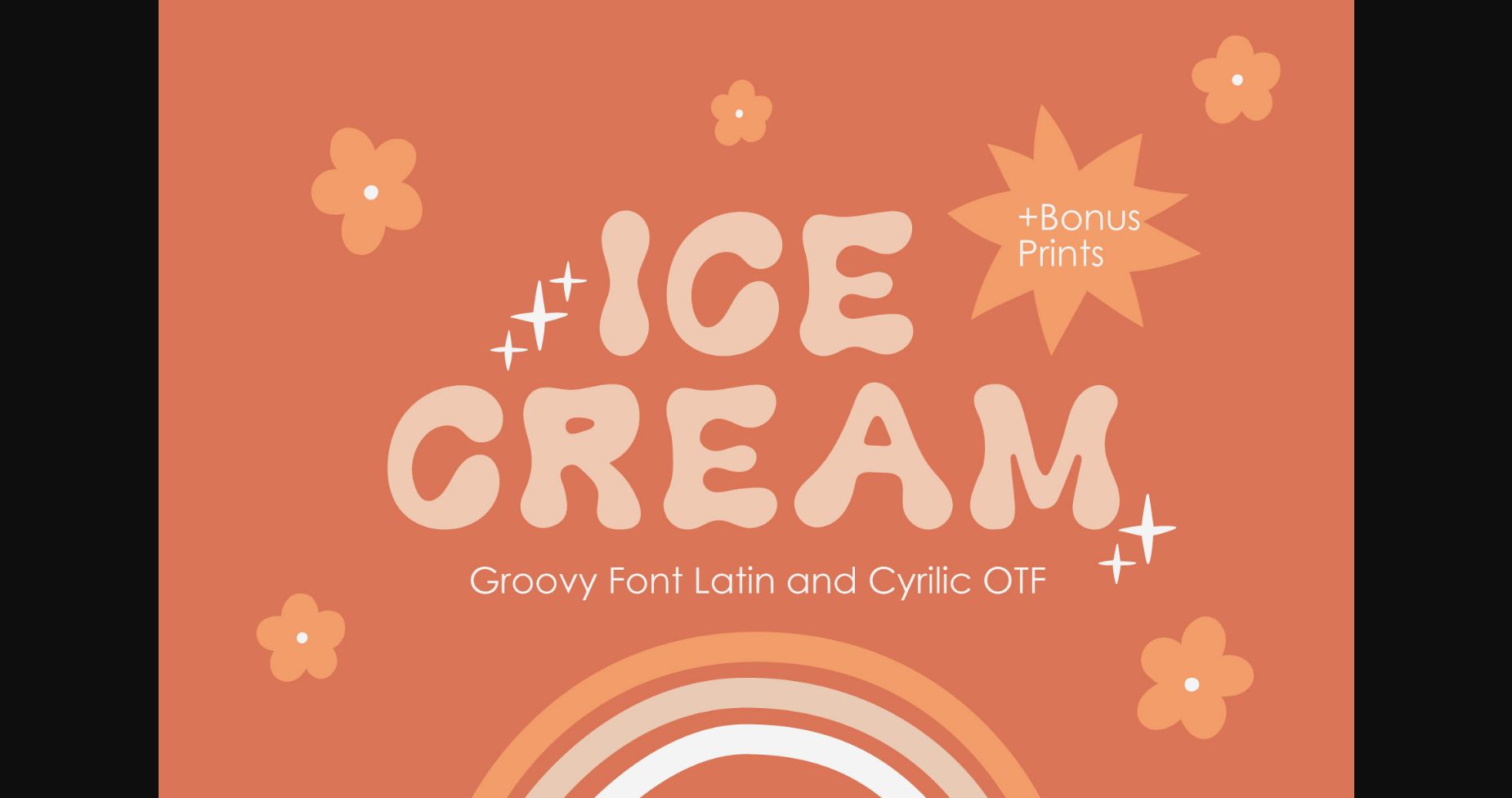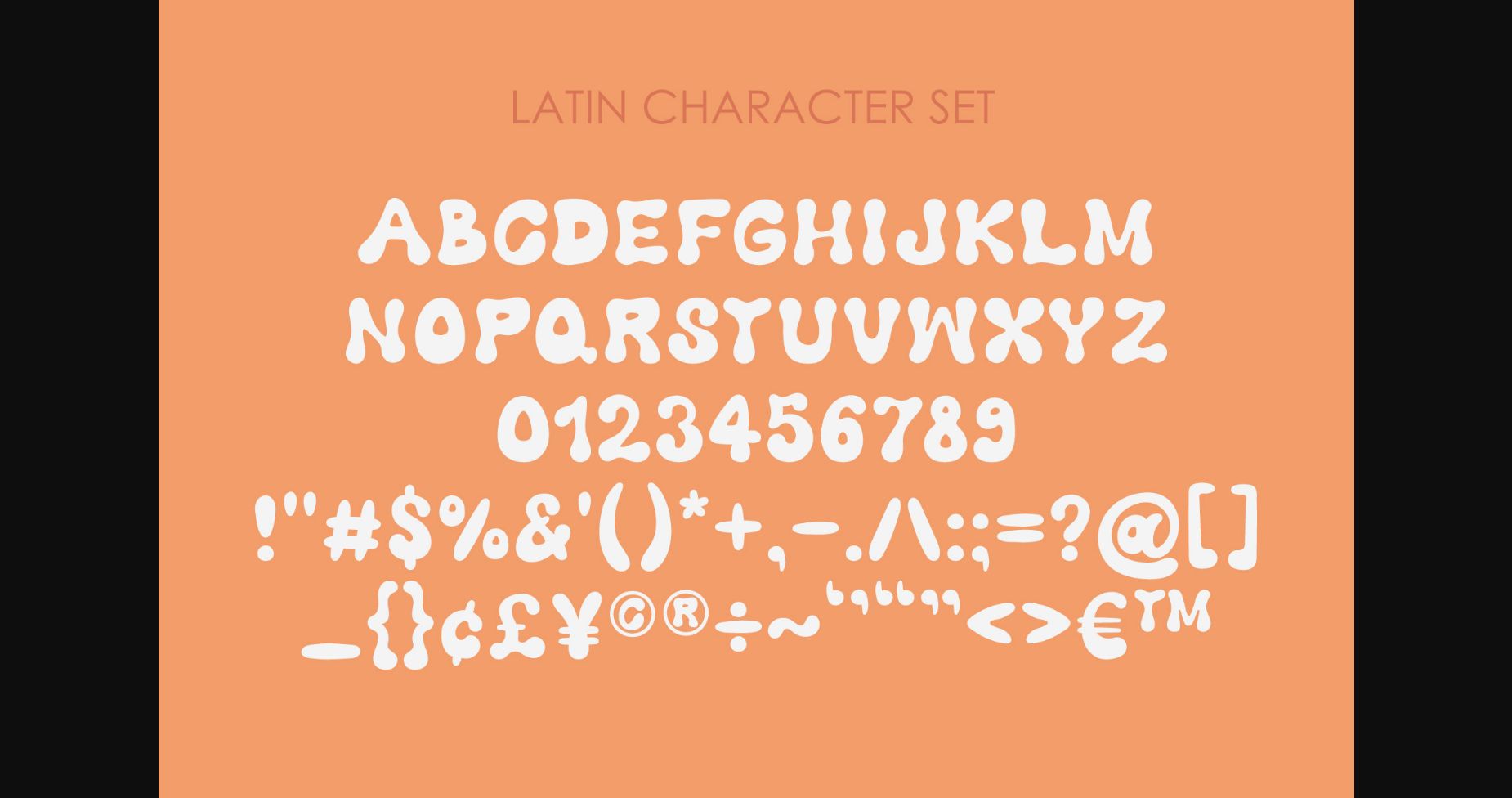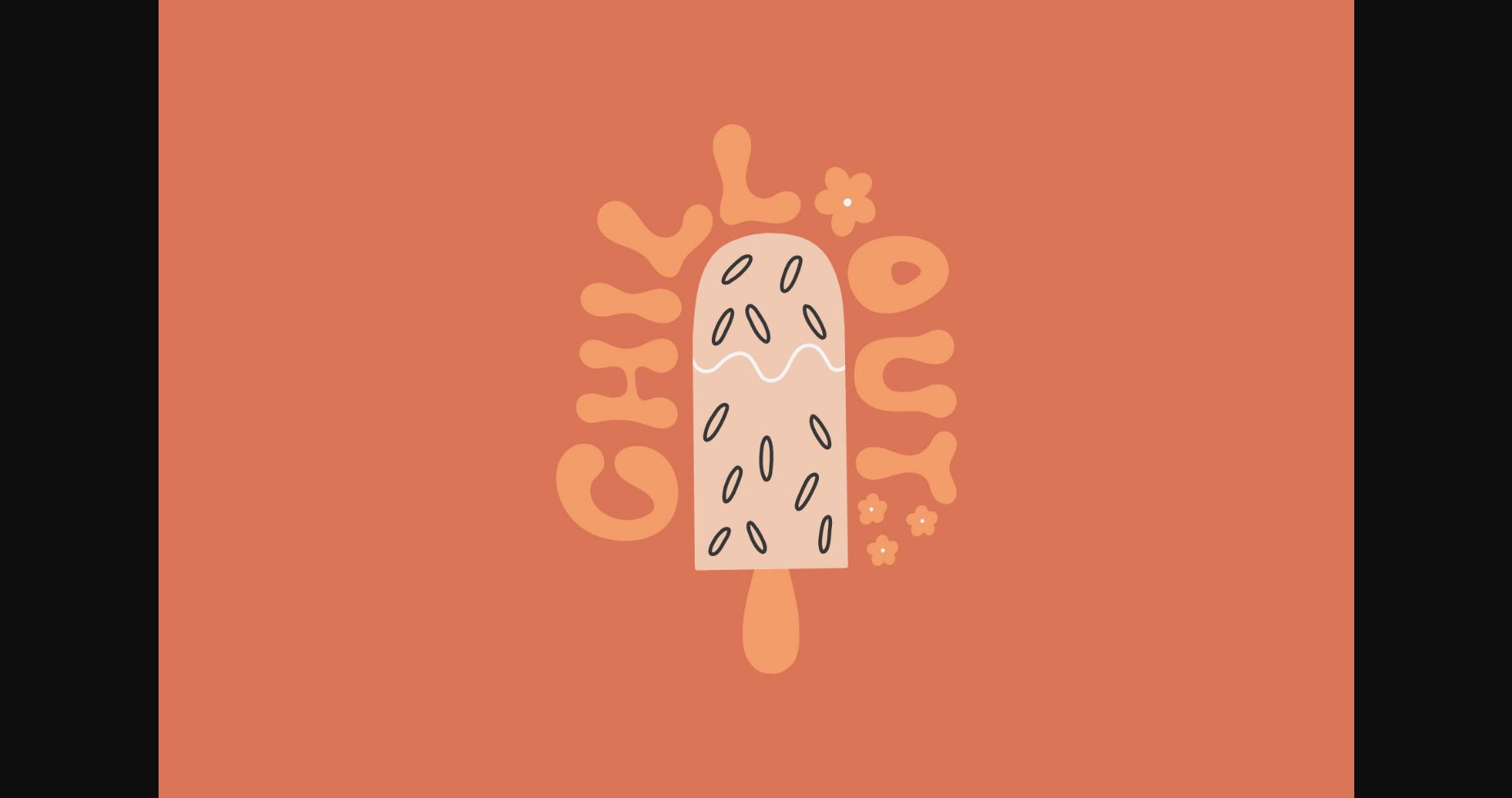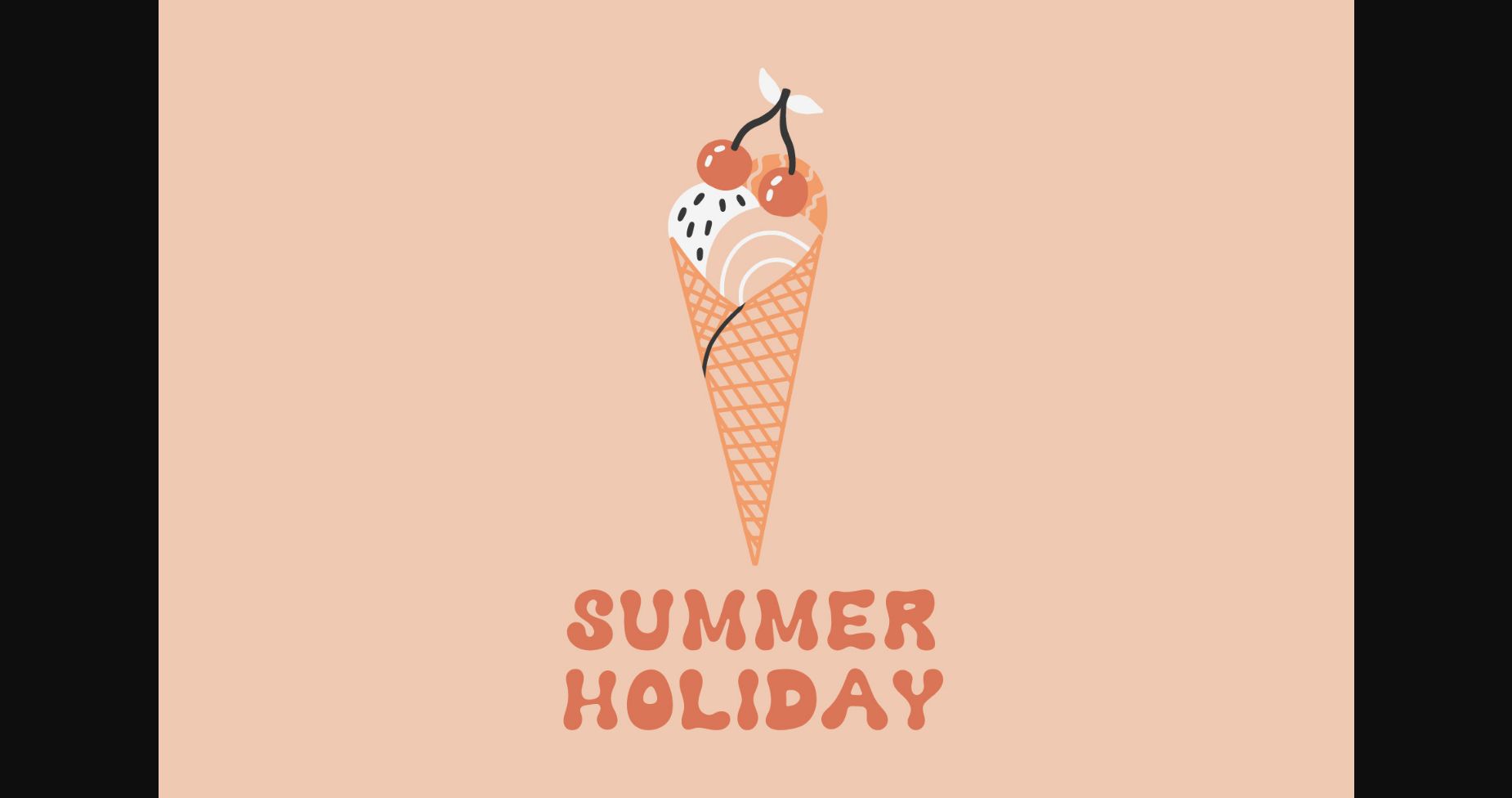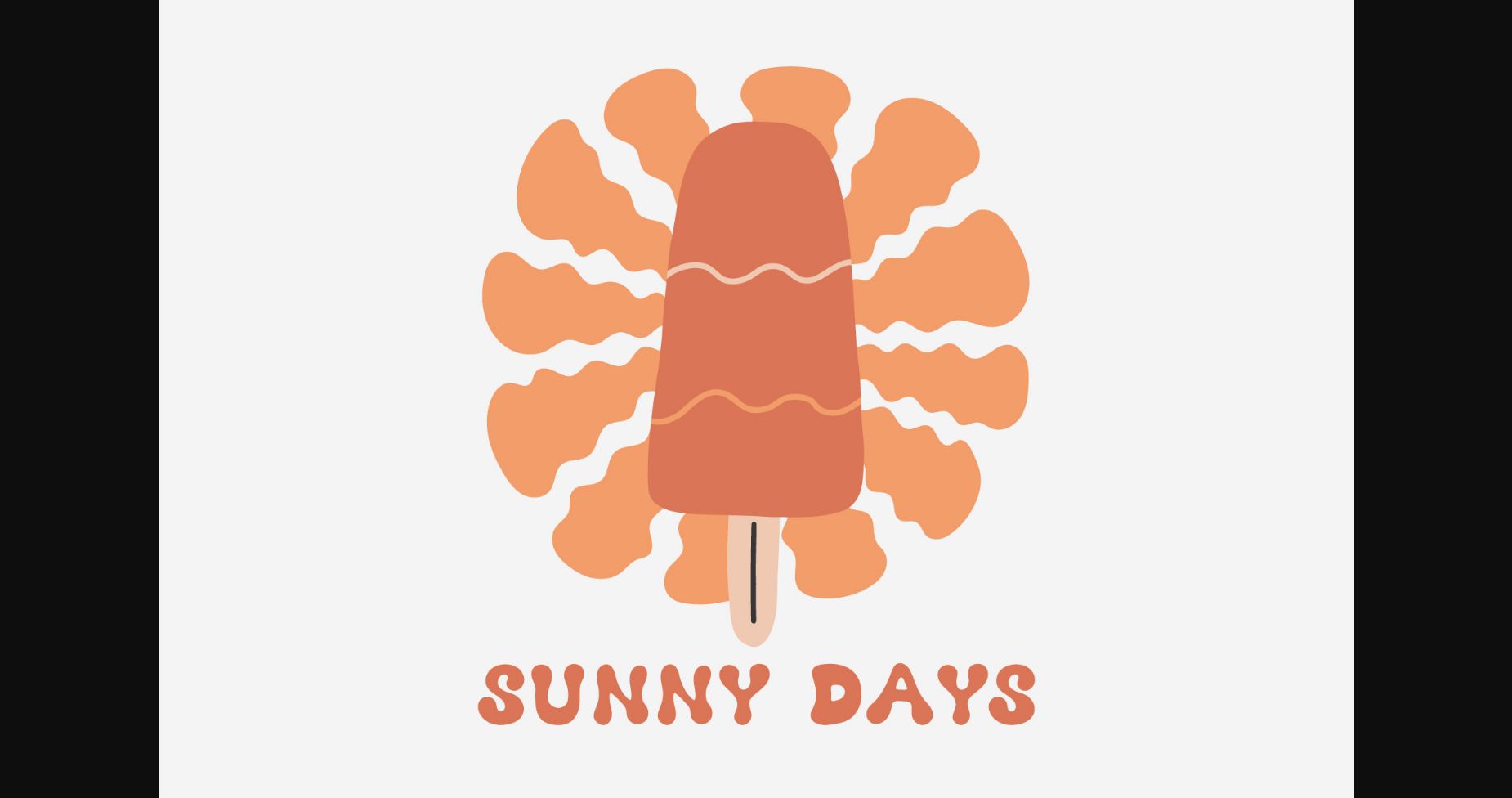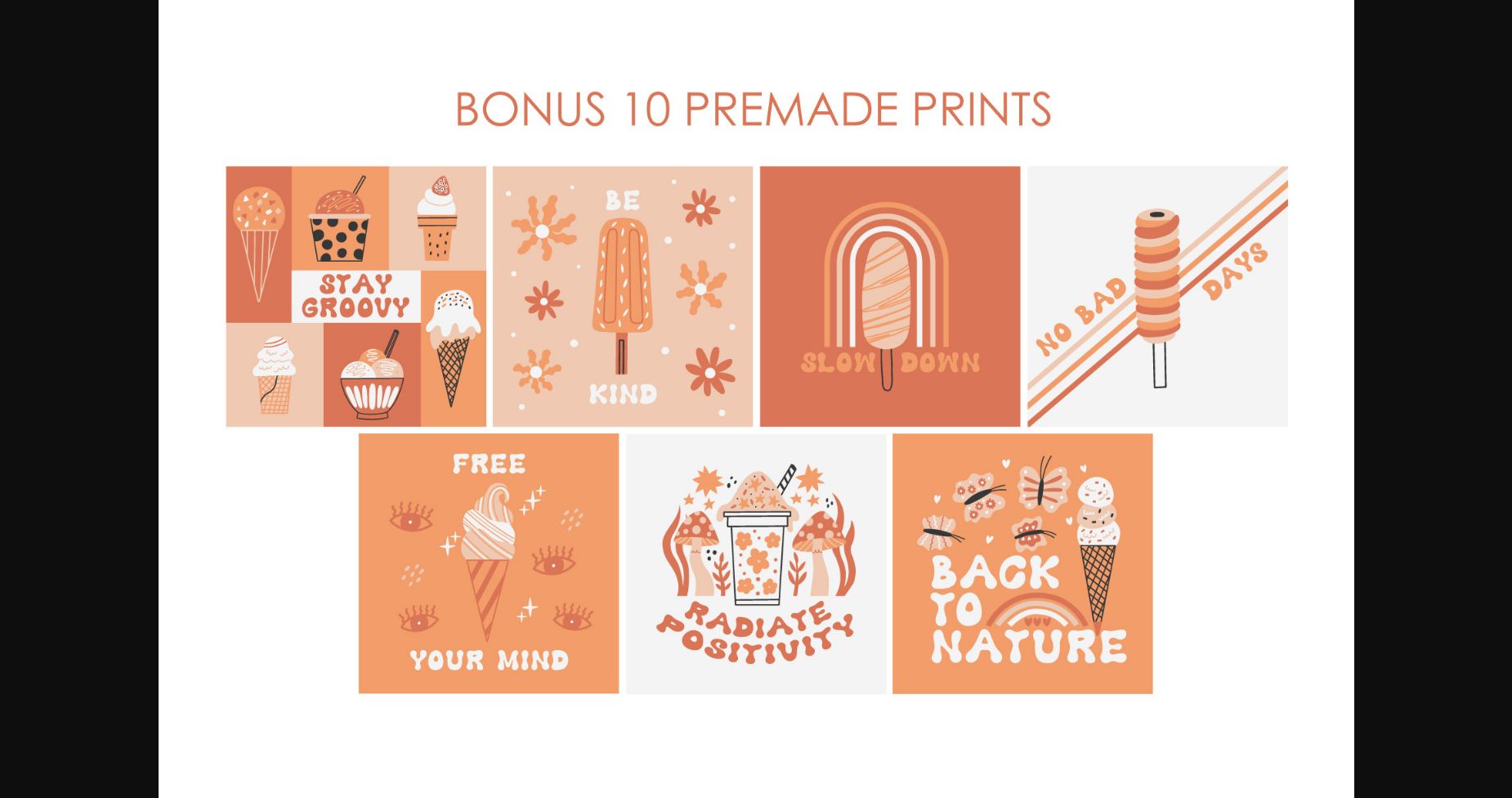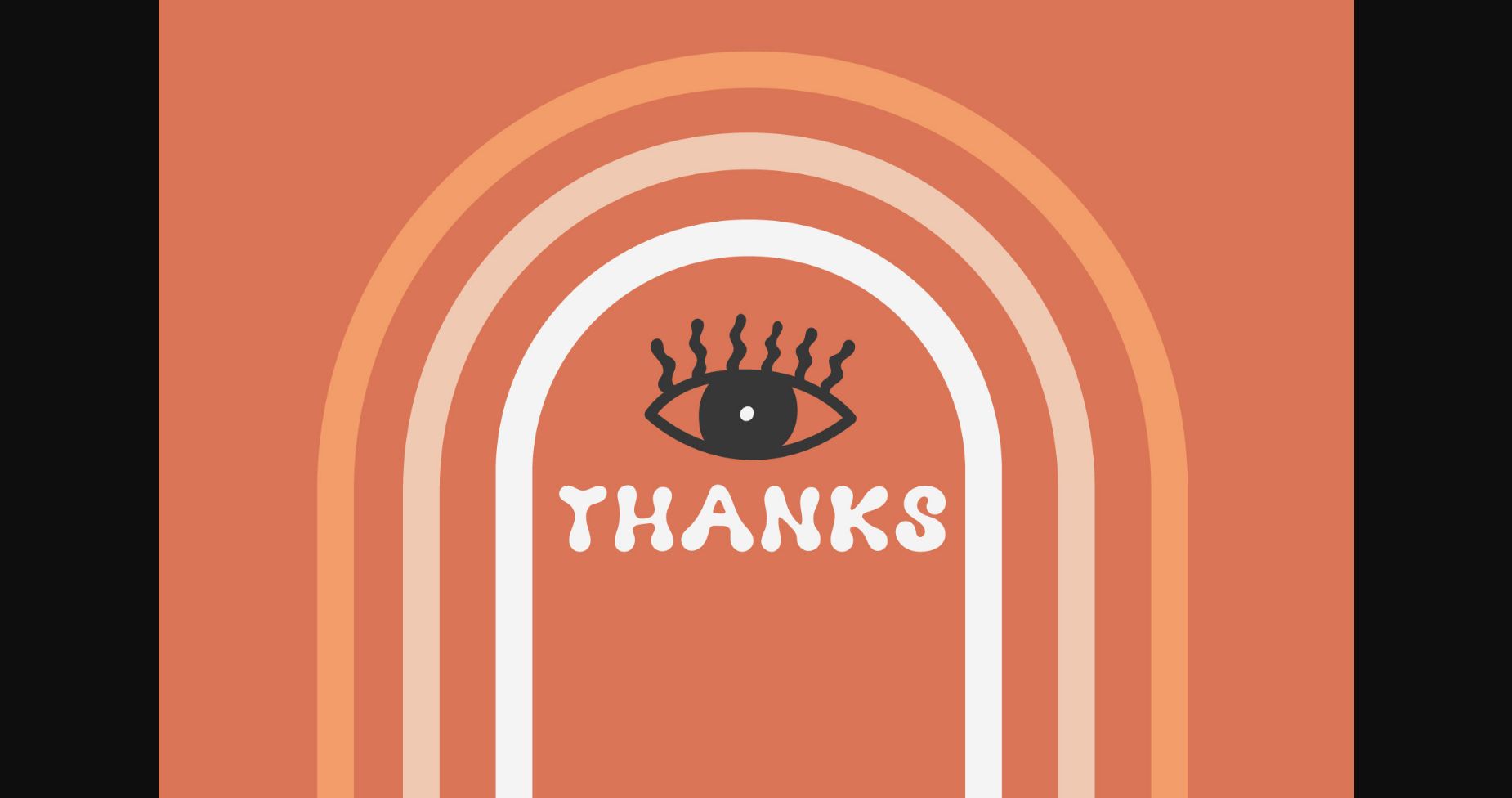
Ice Cream Font
About Ice Cream Font
Ice Cream is a groovy and vintage sans-serif font that captures the essence of the 70s with its bold lines and playful curves. Perfect for retro designs or modern projects looking to add a touch of nostalgia, this font is both stylish and versatile. Its unique personality will make your work stand out in a crowd.